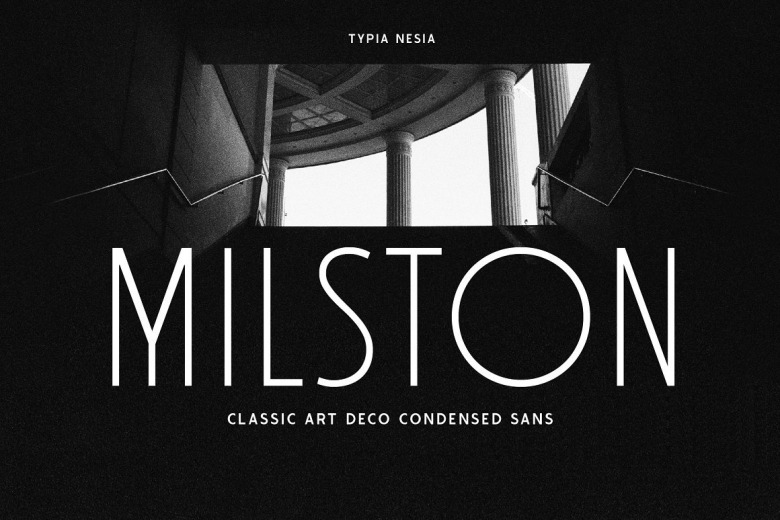
Milston Font
Milston – Classic Art Deco Condensed Sans Serif – Vintage Architecture Font. Milston font is perfect for your up coming projects. Such as luxury logo and branding, classy editorial design, woman magazine, cosmetic brand, fashion promotional, art gallery branding, museum, historical of architectural, boutique branding, stationery design, blog design, modern advertising design, card invitation, art quote, home decor, book/cover title, special events and any more.
Milston Sans Serif Font